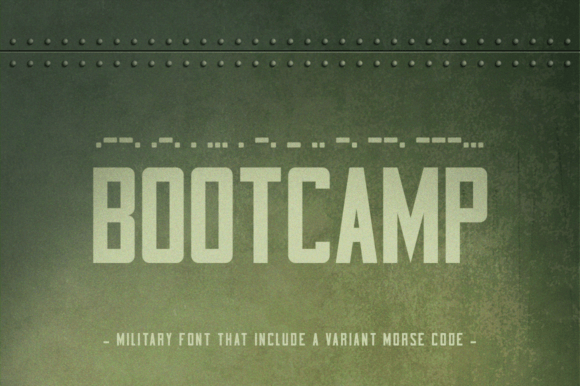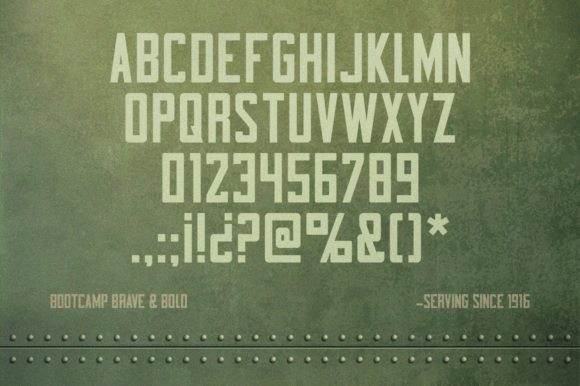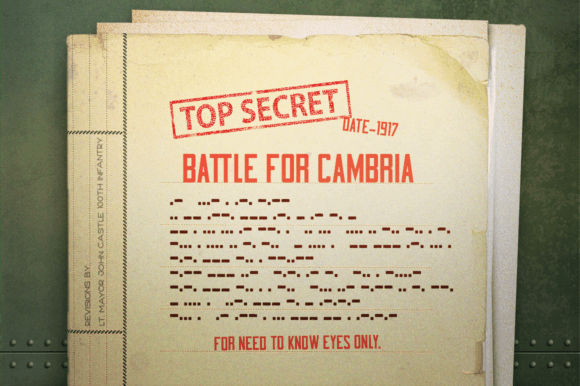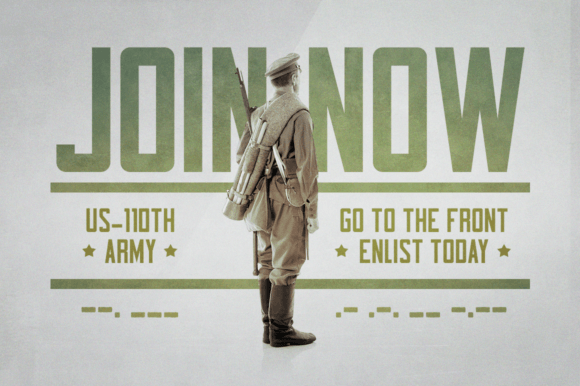
Bootcamp Font: A Bold Sans Serif + Morse Code, Great for Poster Design!
About the Bootcamp Font
Step up your design game with Bootcamp Font, a font that exudes confidence and style. The Bootcamp is an all caps sans serif font inspired by the military lettering style of World War 1 era. It’s perfectly complemented with a rough morse code font.
Bootcamp Font’s strong, geometric forms make it ideal for headlines, posters, and branding projects requiring a bold, authoritative statement. Its utilitarian aesthetic suits military-themed designs, logos for fitness brands, or products emphasizing strength and durability. Avoid using it for body text or UI elements; its condensed letterforms and all-caps style hinder readability in extended passages.
Pairing Bootcamp with a clean sans-serif like Helvetica Neue for body text creates a strong contrast, balancing the boldness of Bootcamp with high readability. For a more rugged feel, consider pairing it with a serif like Rockwell or a textured script for added visual interest.
The overall personality is assertive and direct, conveying strength and reliability. Its military inspiration makes it perfect for conveying messages of resilience and action.
Bootcamp Font Usage Examples
Bootcamp Font Example